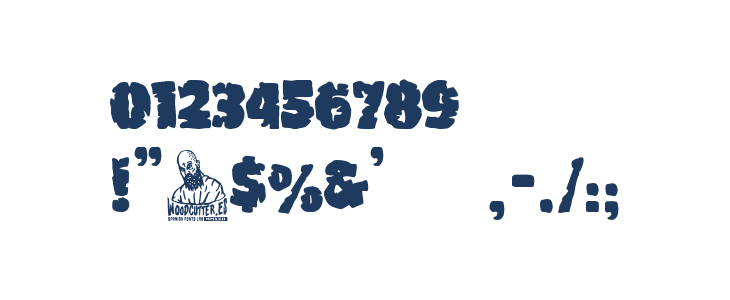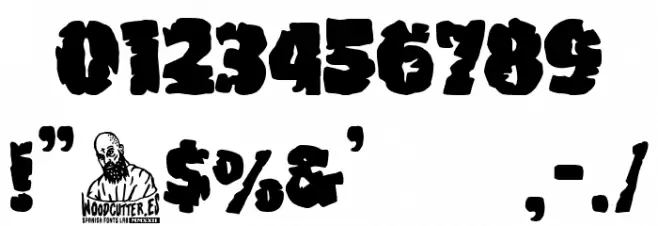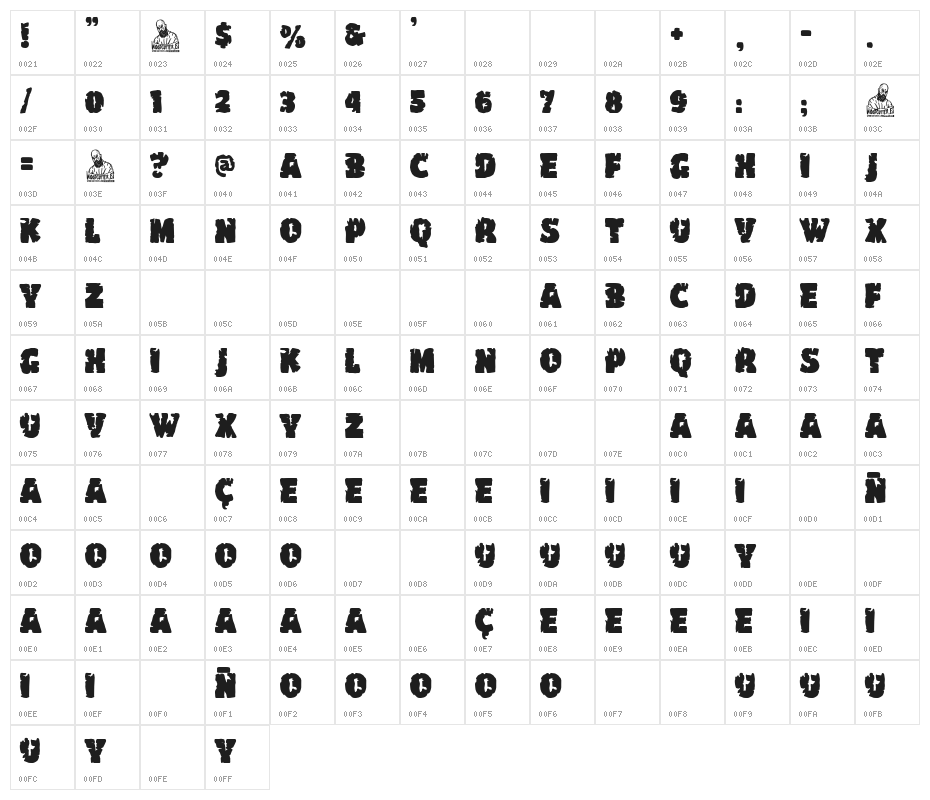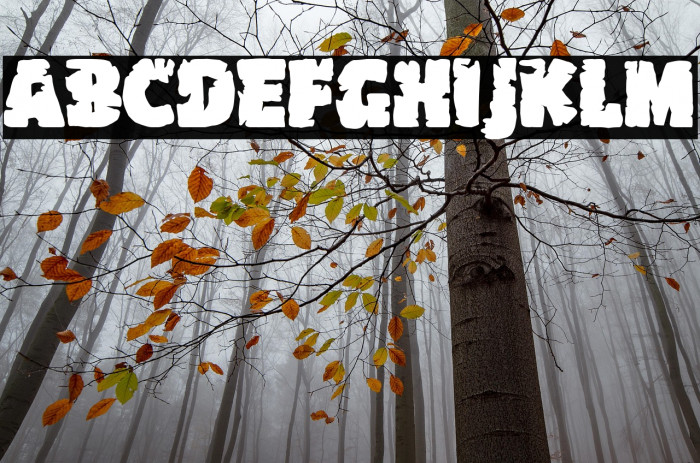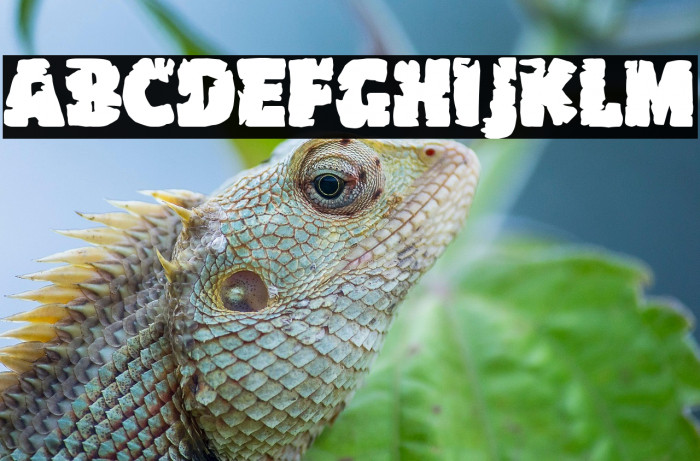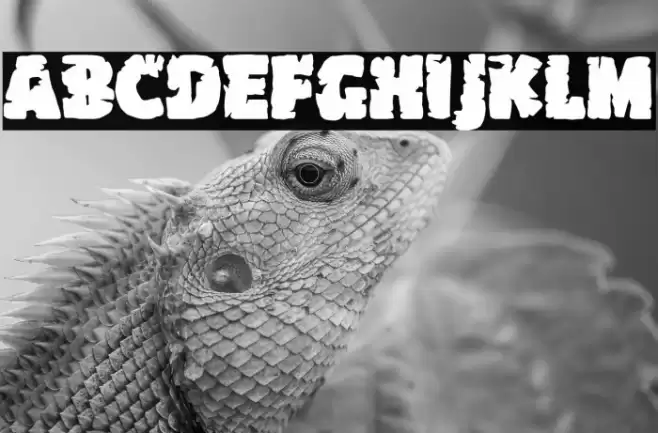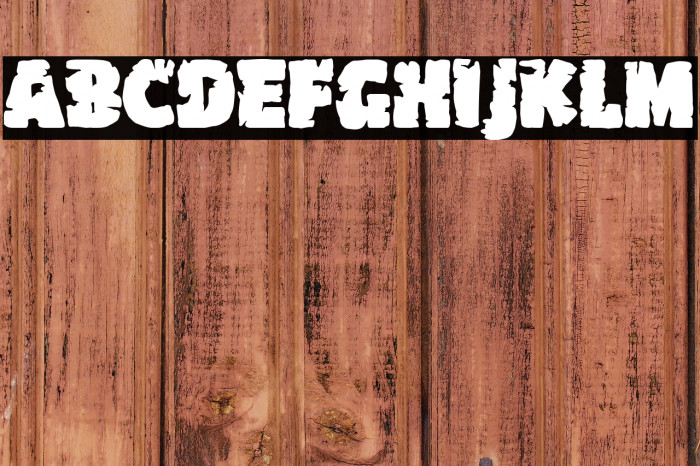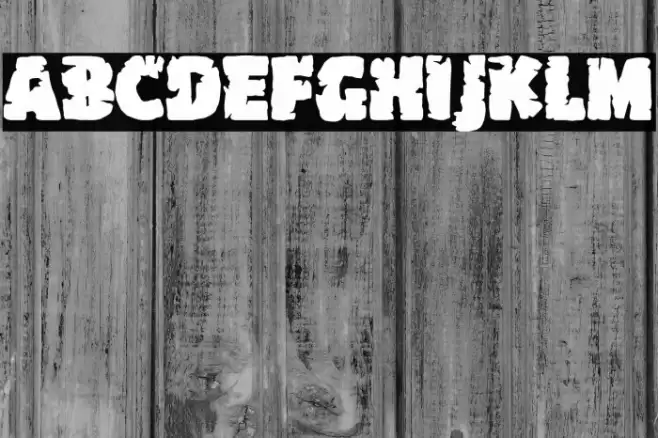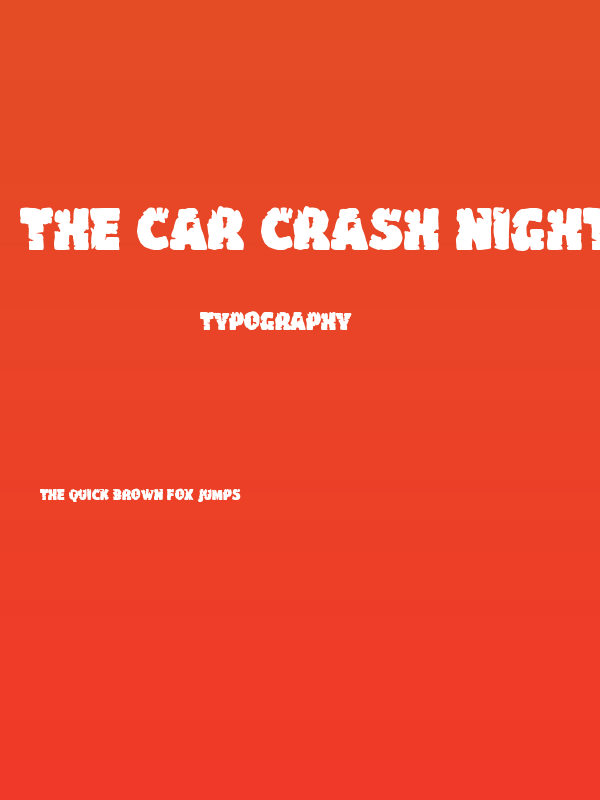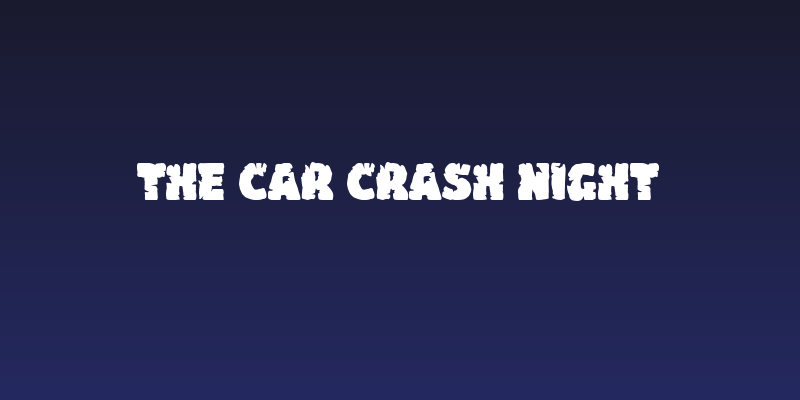
The Car Crash Night Font
The Car Crash Night Description
This font features a bold and rugged design with a distressed, grunge-like appearance. The characters are heavily textured, giving them a worn and weathered look, reminiscent of something that has been through a tumultuous event. The uppercase and lowercase letters maintain a consistent style, with jagged edges and irregular shapes that add to the chaotic aesthetic. Numbers and special characters follow the same design principles, ensuring a cohesive look across all glyphs. This font is ideal for projects that require a dramatic and impactful visual statement.
| Proposed Projects | Ideal for posters, album covers, horror-themed designs, and any project needing a dramatic, edgy look. |